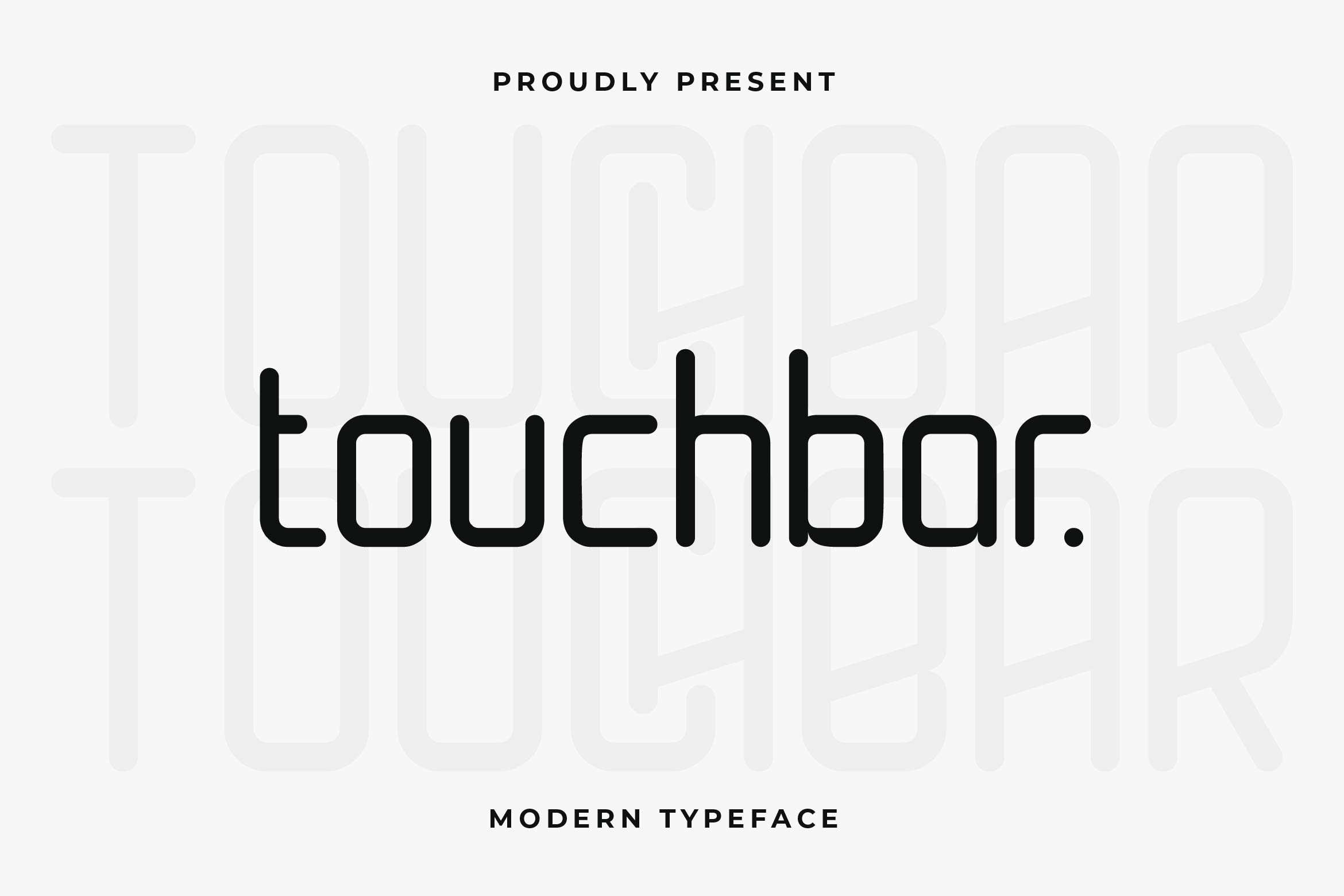
- Touchbar Geometric Sans Font
Touchbar is a modern sans serif font inspired by technology, innovation, and digital aesthetics. With its clean geometry, sharp edges, and minimalist construction, Touchbar is perfect for tech branding, user interfaces, app design, gaming, futuristic logos, and digital product packaging.
This font delivers high readability and modern precision, making it ideal for titles, display text, and branding that aims for a sleek and forward-looking identity. Its structure is versatile enough to handle both bold visuals and refined layouts across web and print.
Touchbar includes uppercase and lowercase letters, numerals, punctuation, multilingual support, and stylistic alternates — giving you full control for a cohesive and cutting-edge typographic system.
Design for the future with Touchbar — the modern tech sans serif that fuses innovation, clarity, and digital edge in every character.